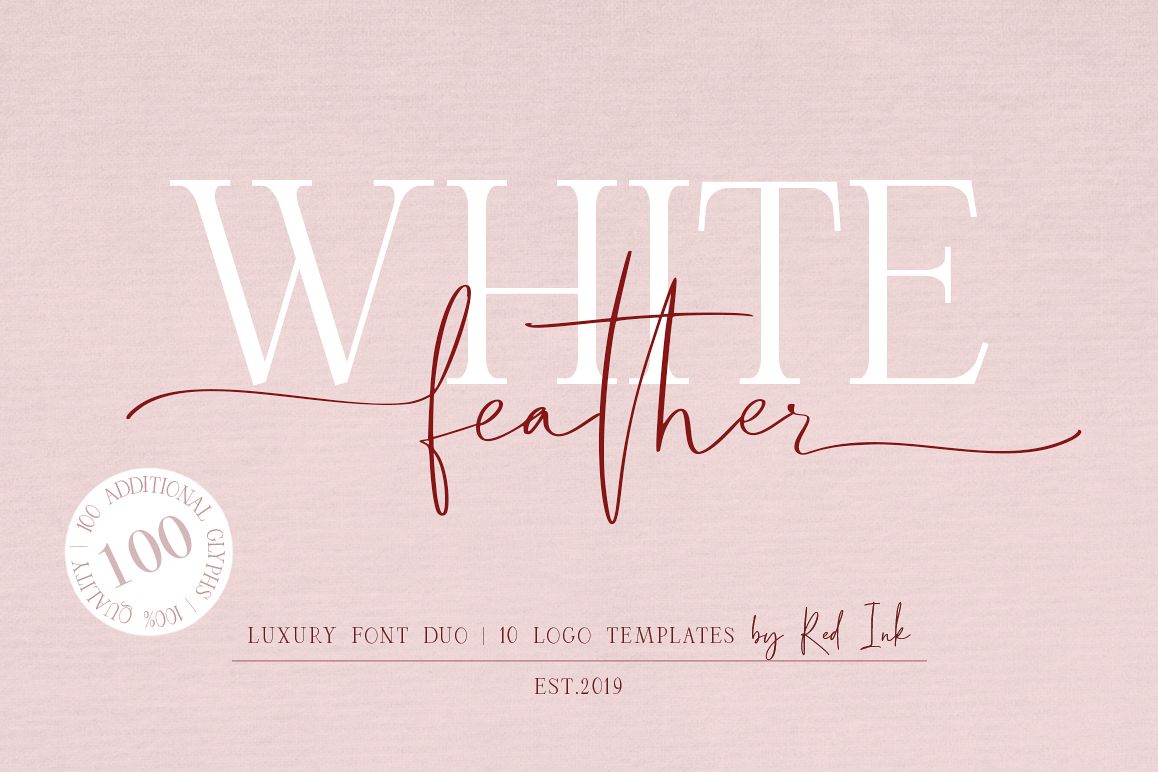
White Feather. Luxury Duo Font.
White Feather is a beautiful high fashion font duo that makes for gorgeous logos, posters, wedding invitations, blog posts, social media, and more!I love using them together with layer masks in Photoshop, so it looks like the script is running through the lines of the serif.
White Feather includes over 48 ligatures to make everything look totally hand-done, and two alternates for each lowercase letter to make awesome swashes for your letters.White Feather come with PUA Unicode that gives you full access to the ligatures and alternates in software that doesn't support the extra characters.
• Lowercase Letters w/ alternates
• 48 Ligatures